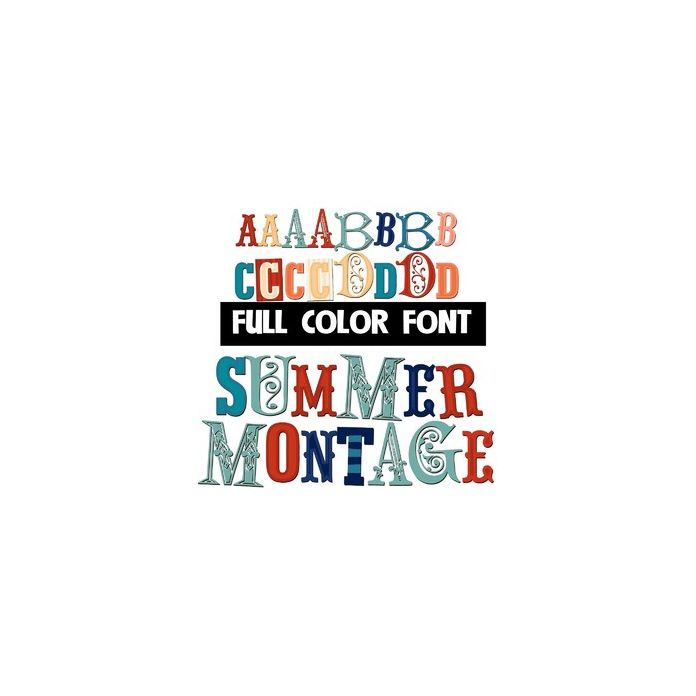
This full-color font features a summer color palette. There is an alt case of lettering you can access through your system's character map or Silhouette's glyph map.